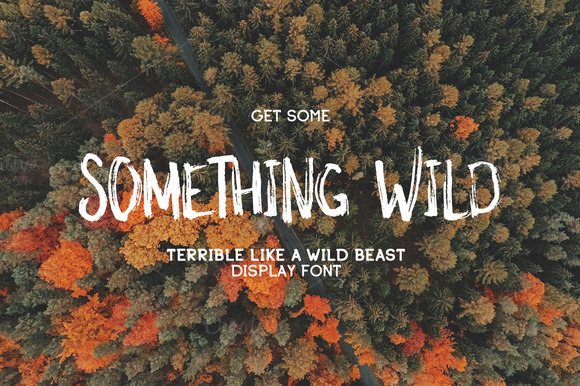
We have Something Wild for you today! It is a gorgeous handwritten font with a genuine wild spirit. Just the right thing for you if you want to add some raw feeling in your design! The font comes in all popular formats. We thank MediaLab team for providing us with this wonderful freebie.